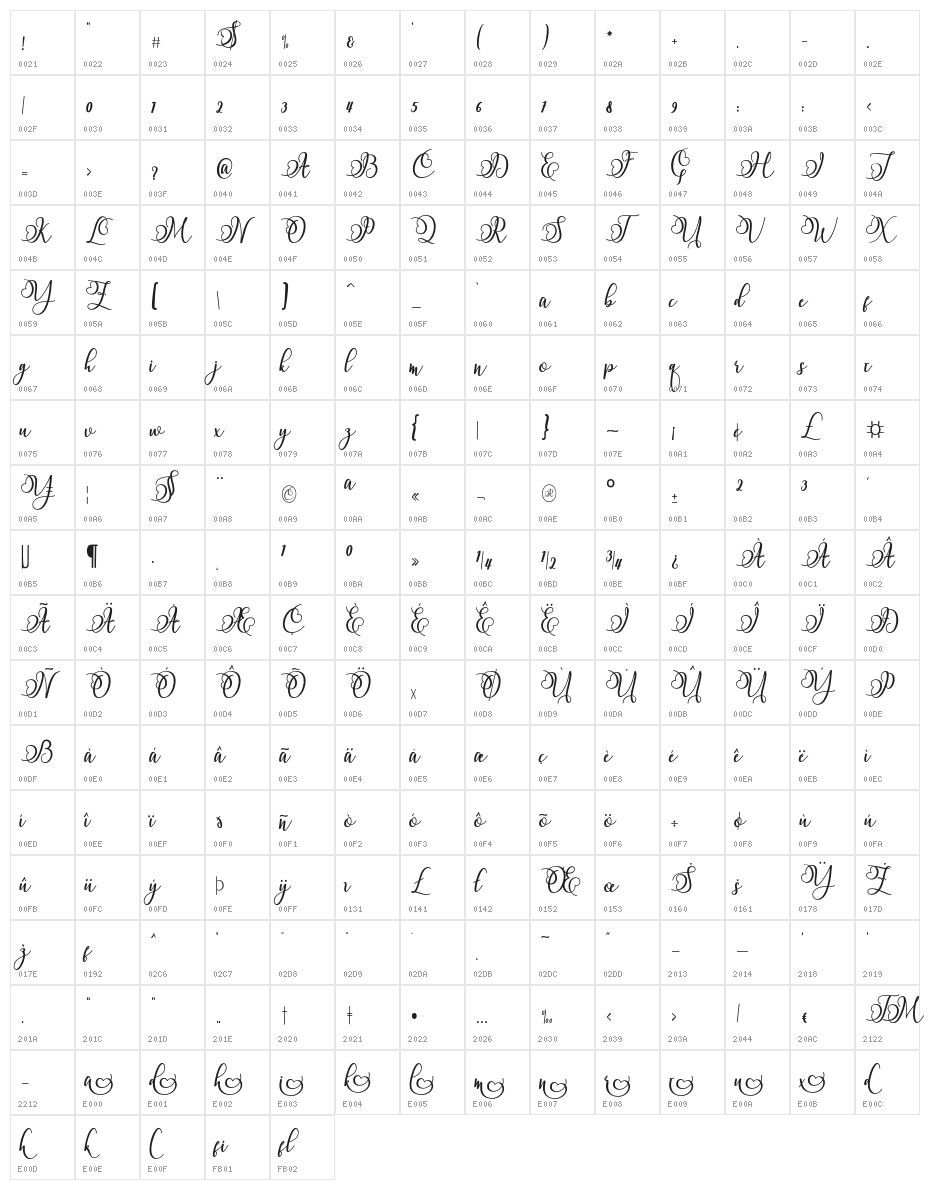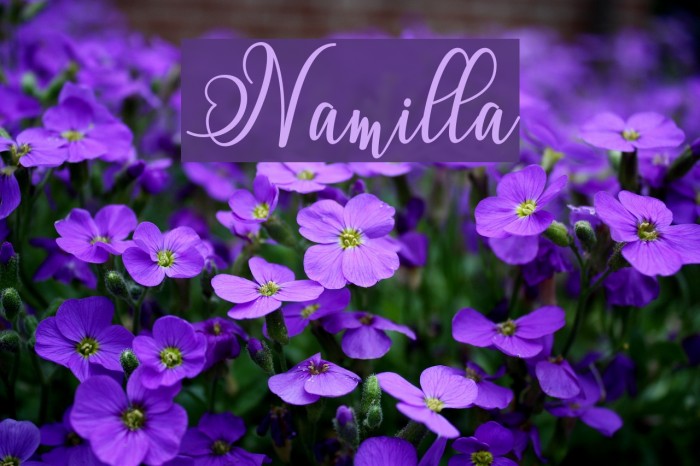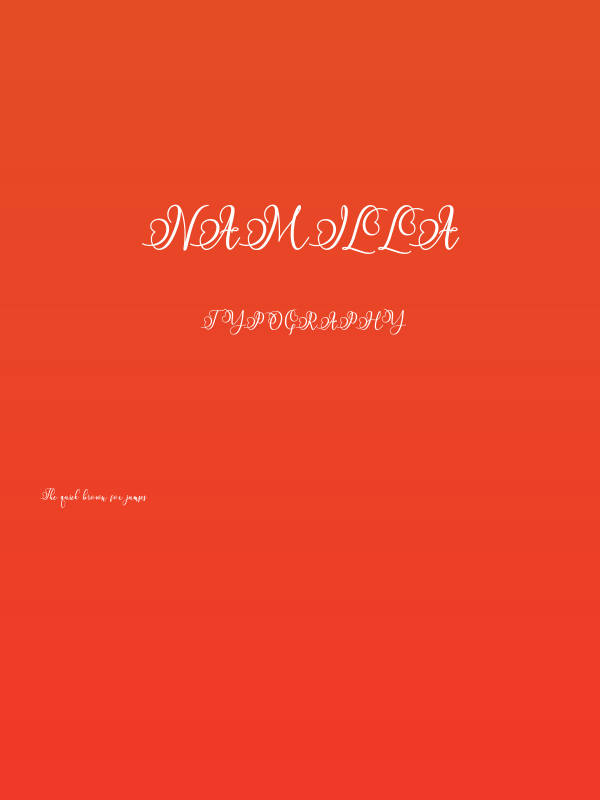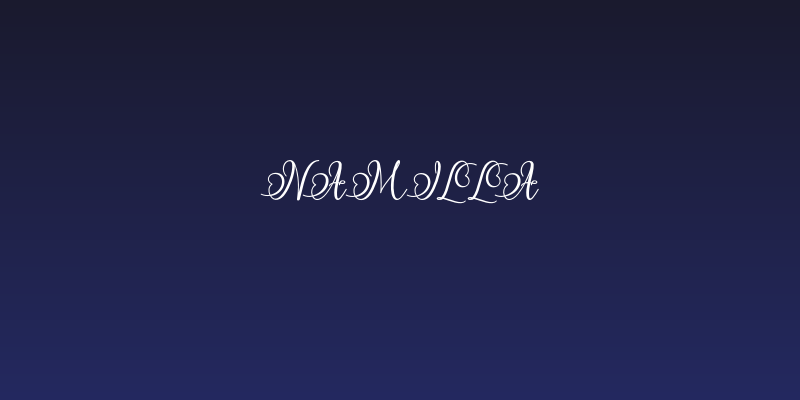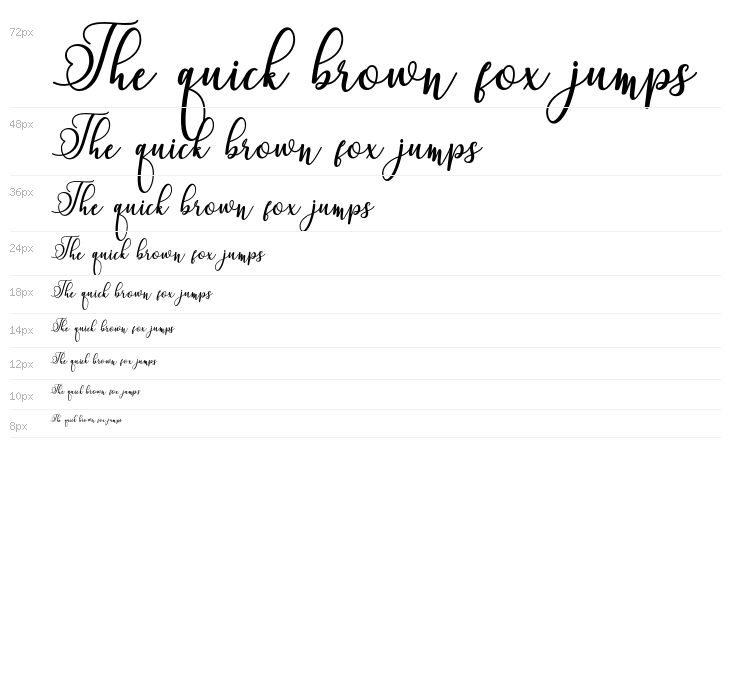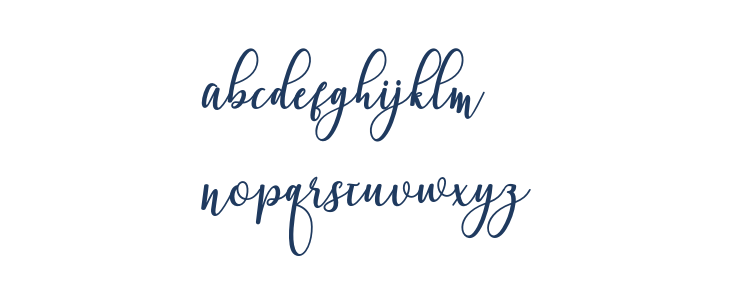
Namilla Font
This font exudes elegance and sophistication with its fluid, cursive style. The uppercase letters are intricately designed with delicate loops and flourishes, giving them a decorative and artistic appearance. The lowercase letters maintain a smooth and flowing script, which complements the uppercase set beautifully. The numerals are clear and consistent with the overall style, ensuring readability while maintaining the font's decorative nature. Special characters are thoughtfully crafted, adding to the font's versatility. This font is ideal for projects that require a touch of elegance and creativity.
Use CaseLogos, Invitations, Branding
Proposed ProjectsIdeal for wedding invitations, branding, logo design, and elegant stationery.